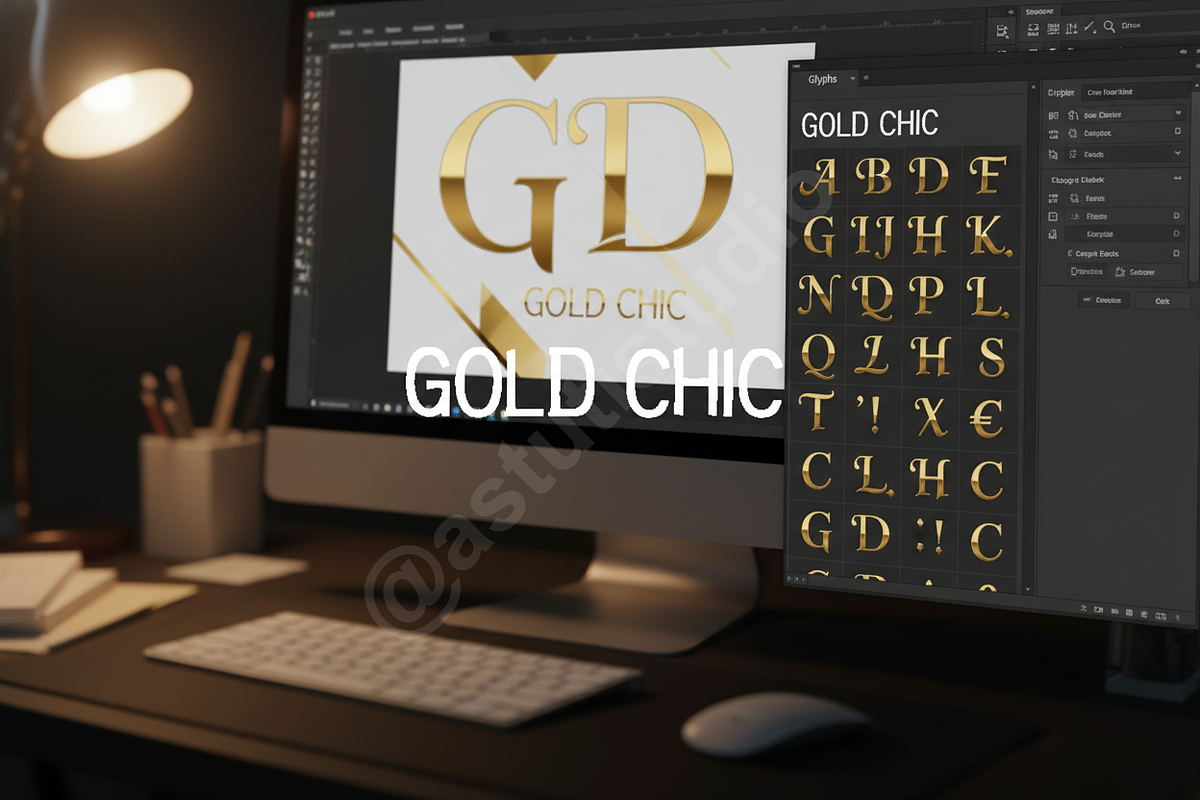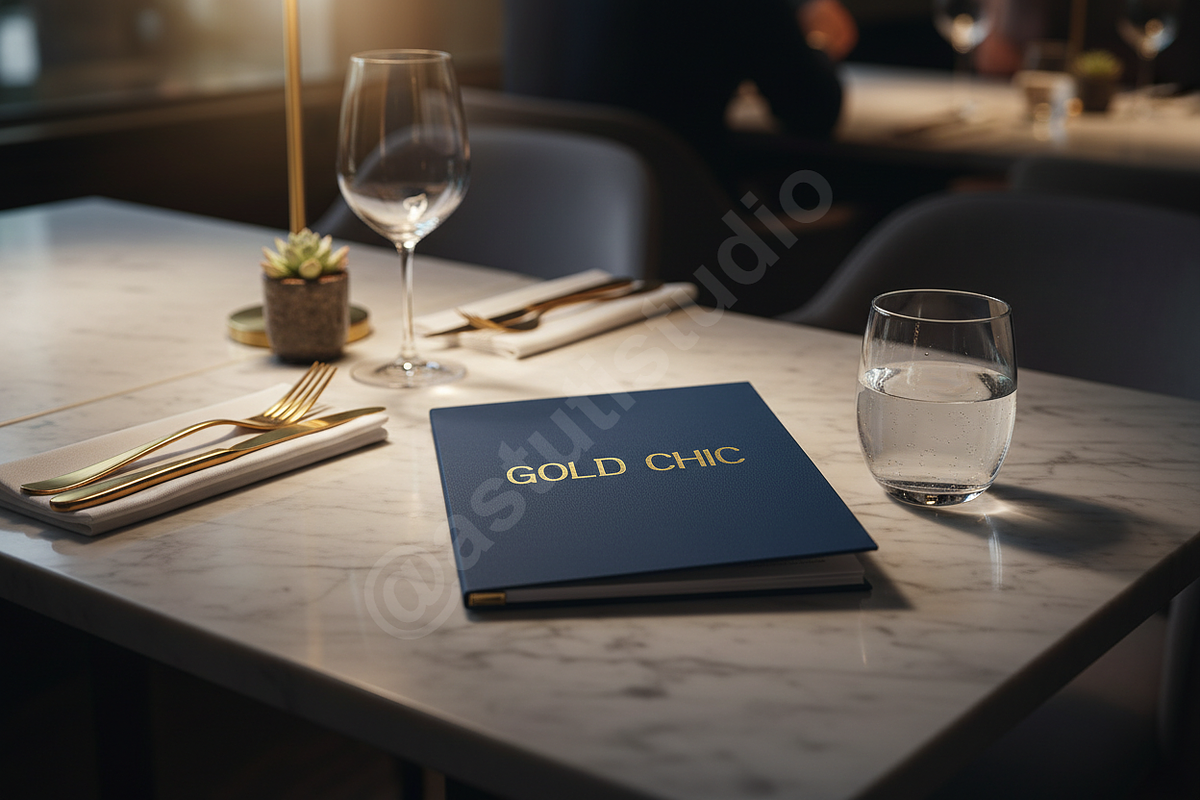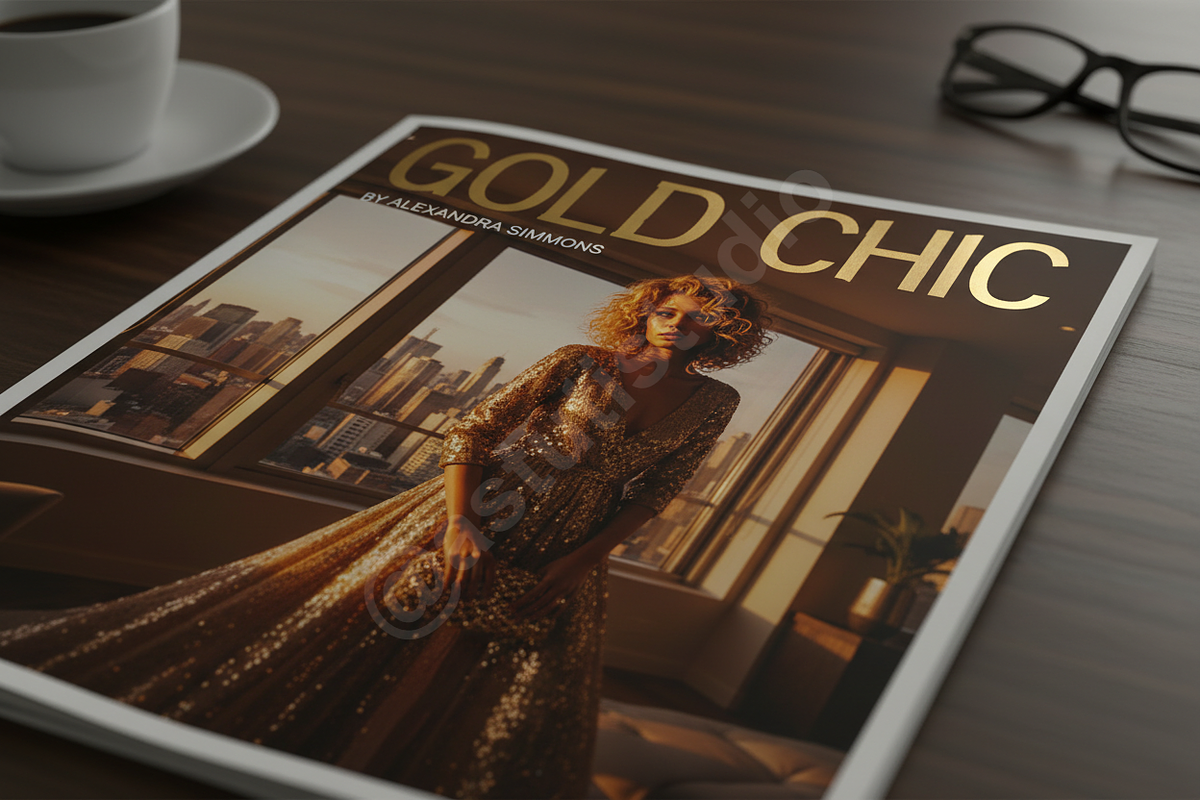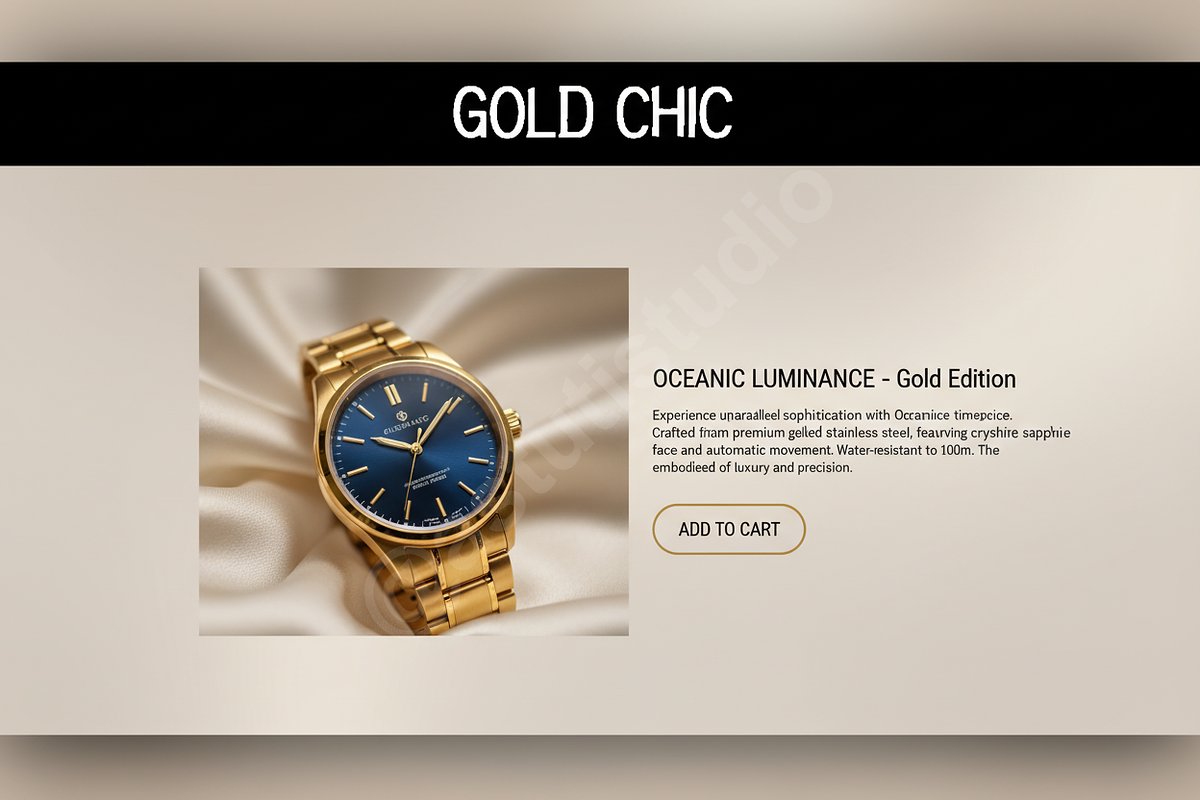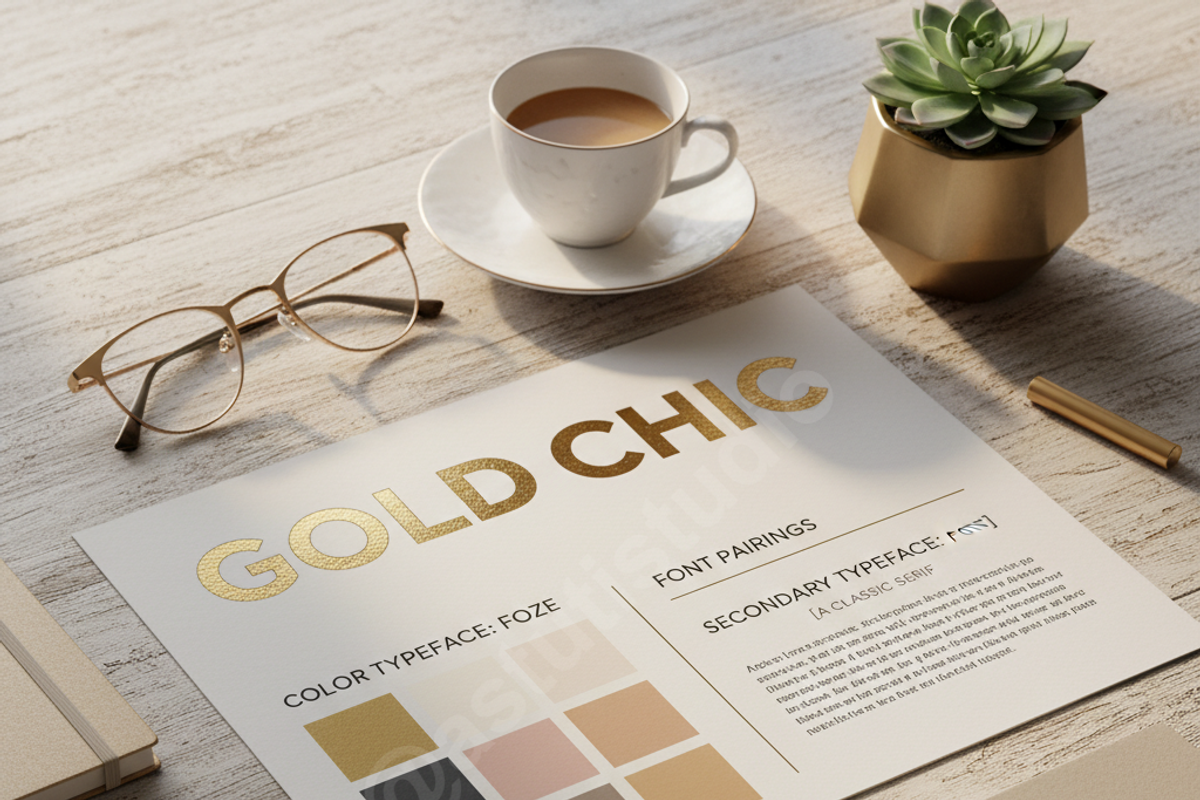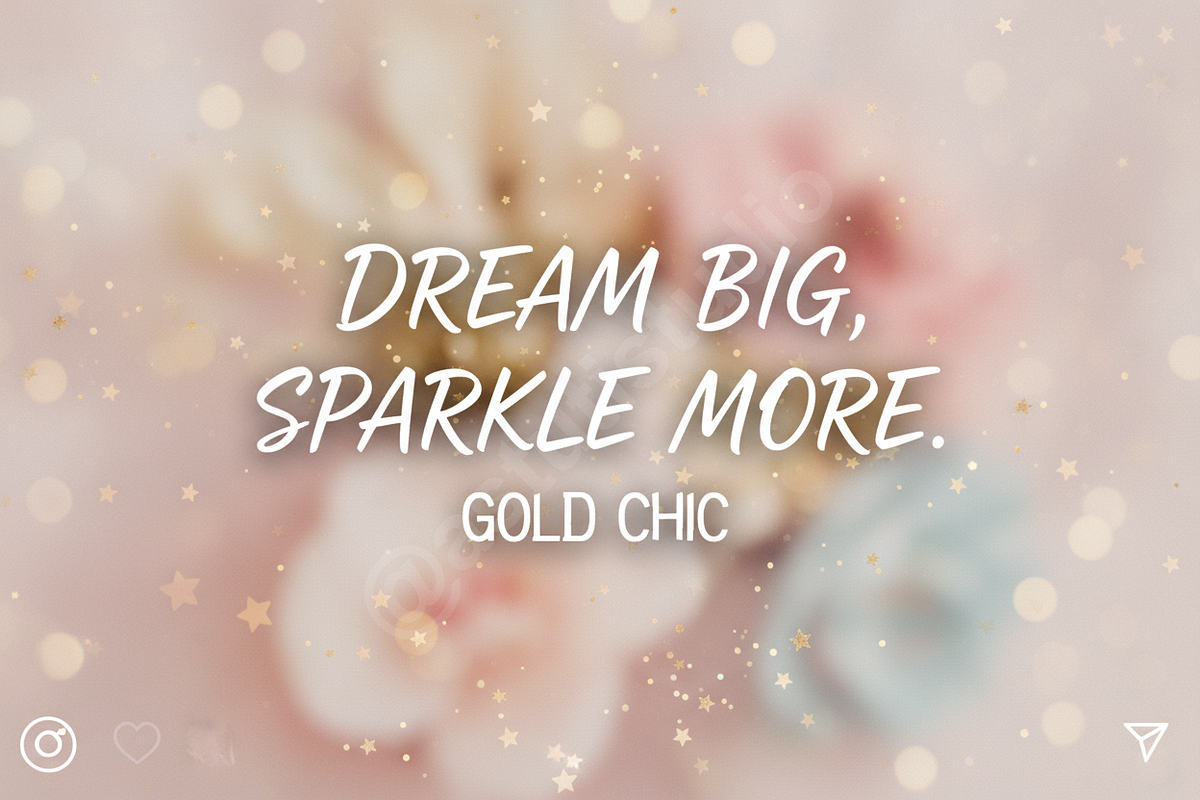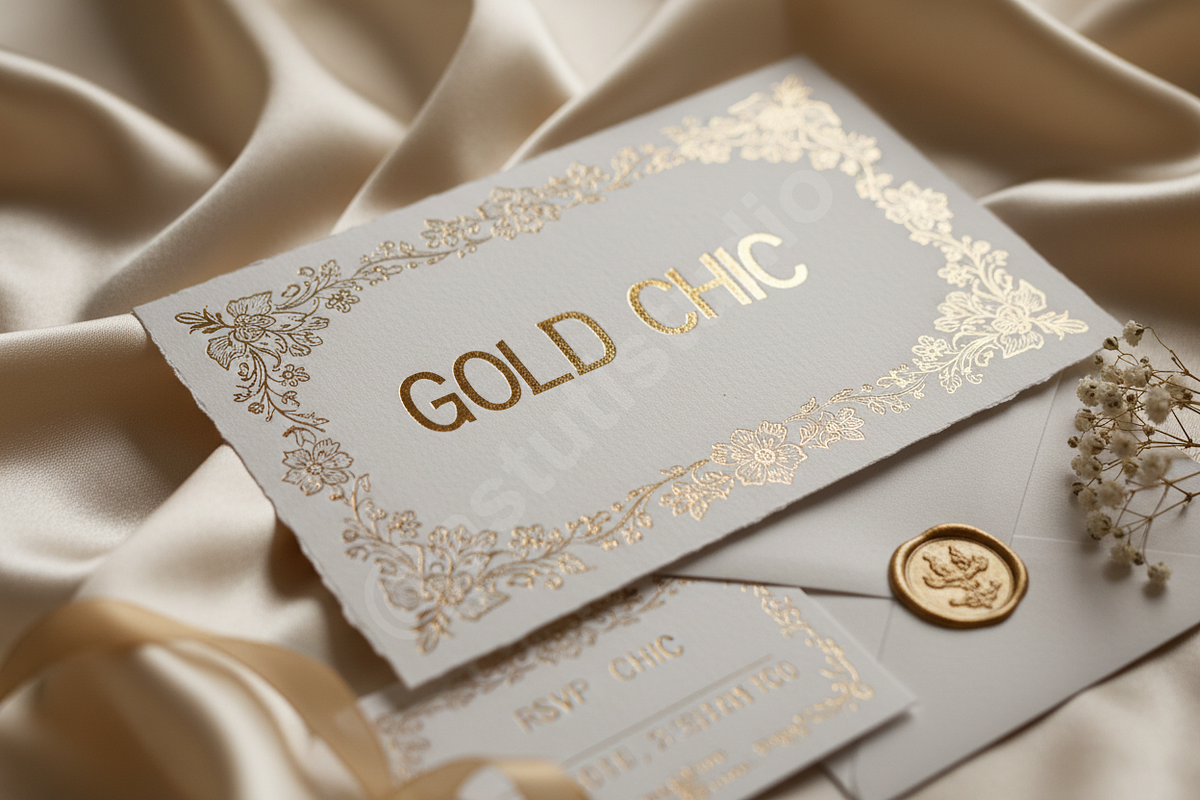
Foze - Elegant Modern Sans Serif Fon
Introducing Foze, a meticulously crafted modern sans-serif font designed to elevate your creative projects with an unparalleled touch of sophistication. Foze embodies elegance and clarity, making it the quintessential choice for brands that demand a refined aesthetic. Perfect for luxury branding, high-end editorial layouts, and captivating social media content, Foze ensures your message is delivered with impactful style and timeless appeal.
- Clean, Elegant Sans-Serif Design: A harmonious blend of modern simplicity and classic refinement.
- Extensive Ligatures & Alternates: Enhance your typography with stylistic variations for unique compositions.
- Multilingual Support: Reach a global audience with comprehensive language coverage.
- Versatile Application: Ideal for headlines, body text, logos, branding, posters, and web design.